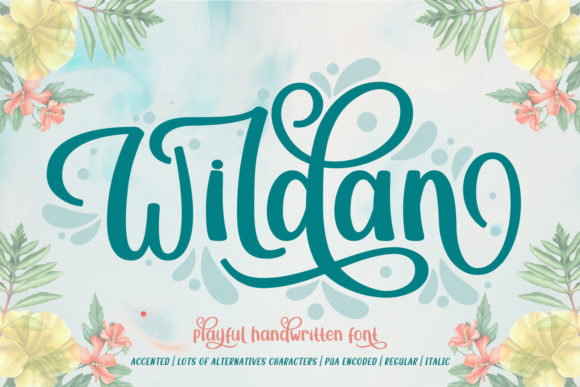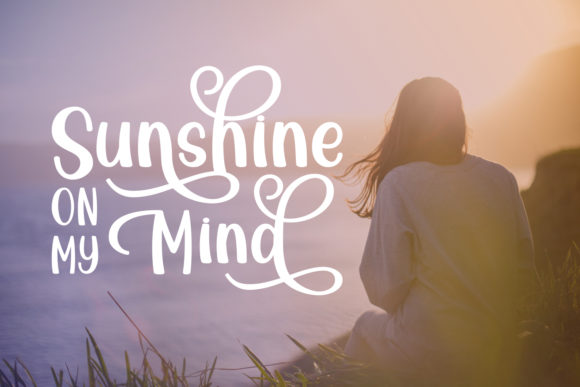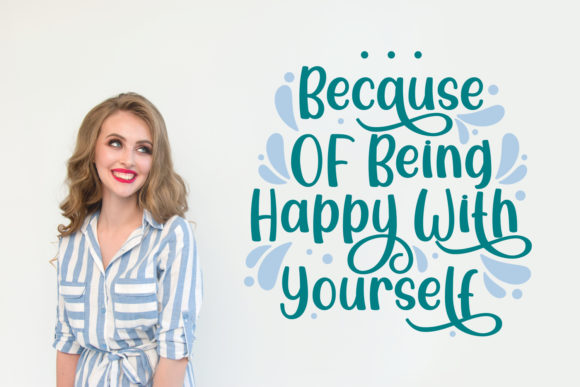
Wildan Font
About Wildan Font
Wildan is an incredibly light and playful handwritten font with an organic feel. Bold, yet authentic, this script will add a unique spark to any creative project!